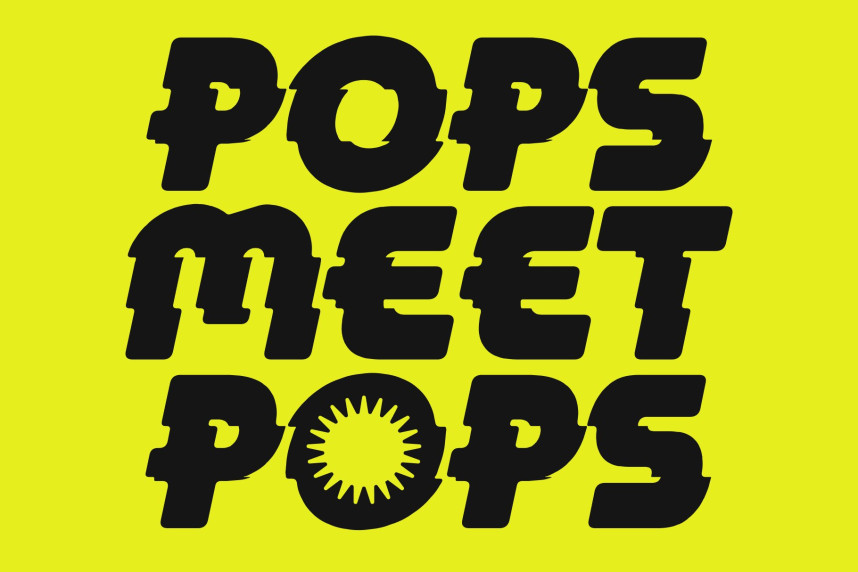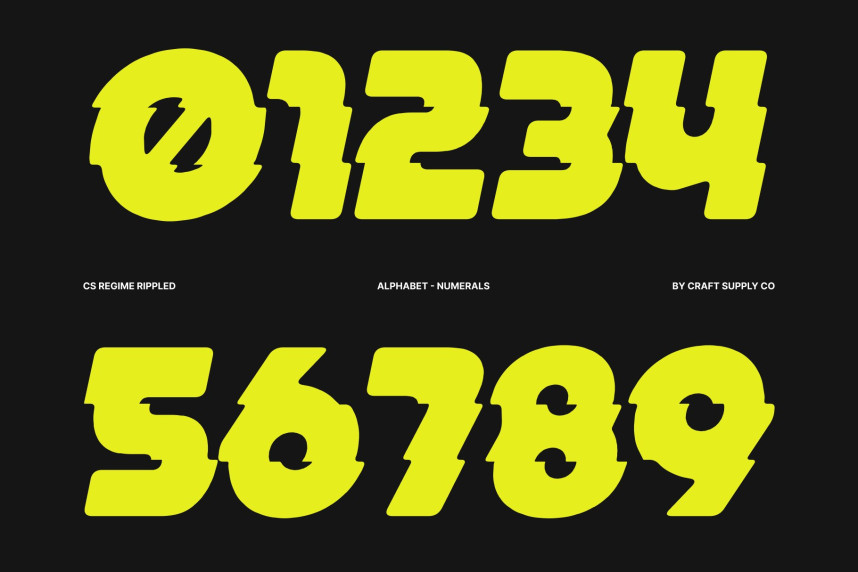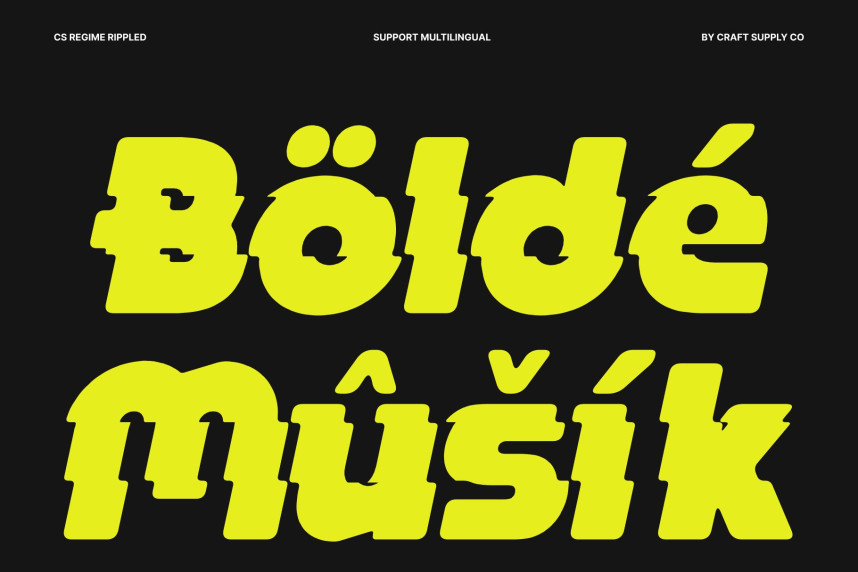
CS Regime Rippled Font
CS Regime Rippled Font – Bold Display Font: Where Bauhaus Geometry Meets Liquid Wave Motion
Geometric Bauhaus Forms with Modern Retro Energy
This is a bold display font inspired by classic Bauhaus principles, blending retro geometric character with contemporary design sensibility. Its modular construction and strong geometric forms create a visually engaging appearance filled with balance, structure, and artistic modernism. Every character feels bold and expressive, making the font perfect for standout visual compositions and impactful creative projects.